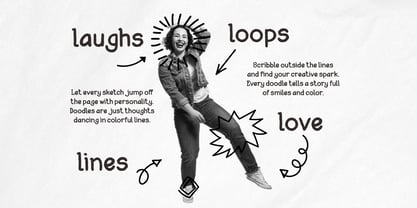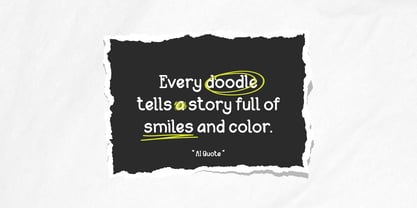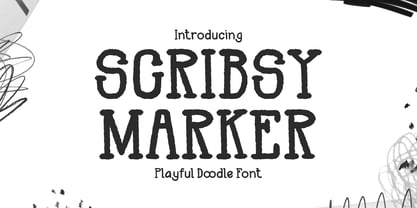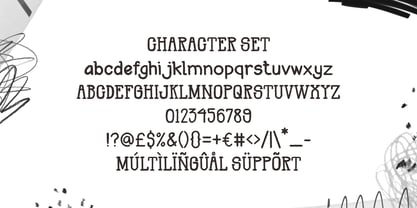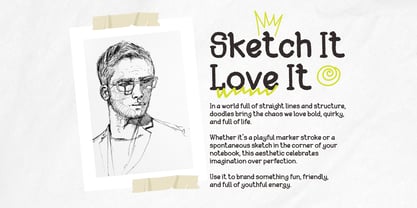
Scribsy Marker
by Shanaf
The Scribsy Marker Font Family was designed by Yesie Erma Yunita and published by Shanaf. Scribsy Marker contains 1 styles. More about this family
Scribsy Marker Playful Doodle Font captures the joyful spirit of handwritten creativity with bold, uneven strokes that feel alive and spontaneous. Its hand-drawn texture mimics the look of a thick marker pen, giving each character a natural, imperfect rhythm that adds warmth and authenticity. The font has medium weight with rounded edges, playful proportions, and a slightly irregular baseline that brings a casual yet confident energy. Scribsy Marker Playful Doodle Font is designed to express imagination and fun — perfect for projects that aim to look approachable, cheerful, and full of personality. This typeface is ideal for logo design, children’s books, posters, packaging, invitations, stickers, and quote designs. It’s also a great choice for educational materials, social media graphics, or any brand that wants to appear friendly and relatable. The playful doodle style makes it versatile for both print and digital projects, adding a hand-touched quality to every word. Scribsy Marker Playful Doodle Font invites designers to embrace creativity, loosen up, and let their ideas flow like sketches in a notebook — full of laughter, life, and originality.
Designers: Yesie Erma Yunita
Foundry: Shanaf